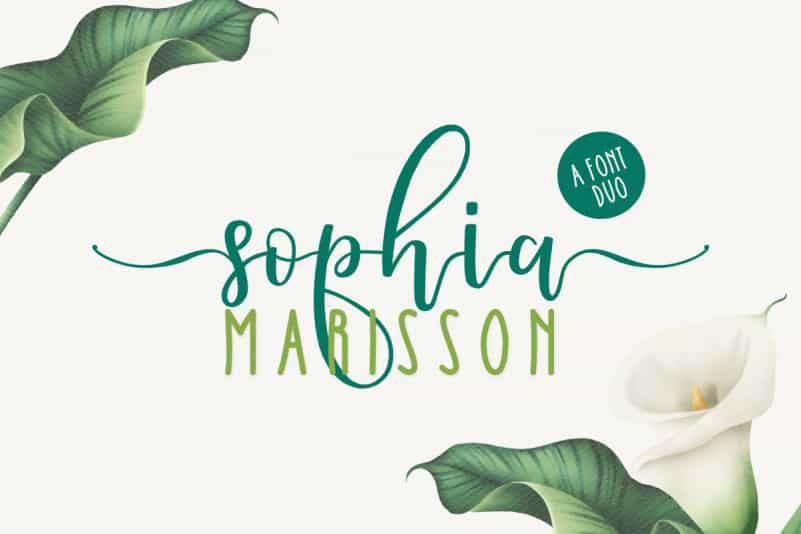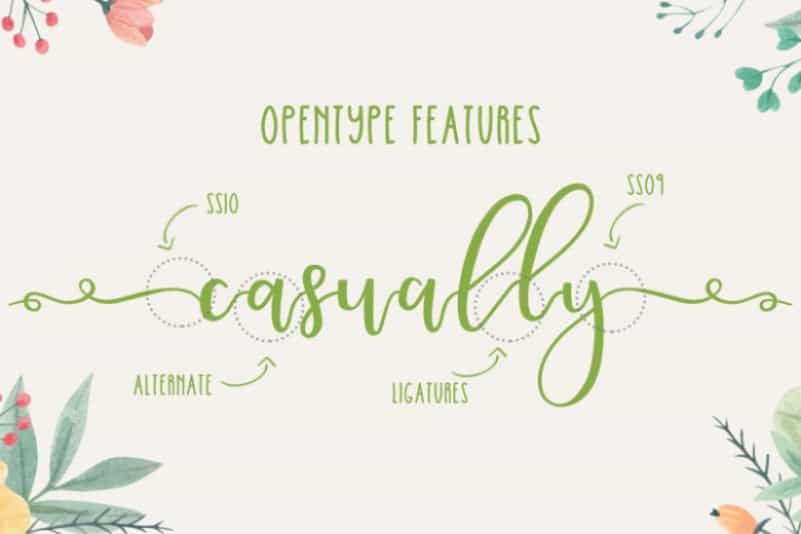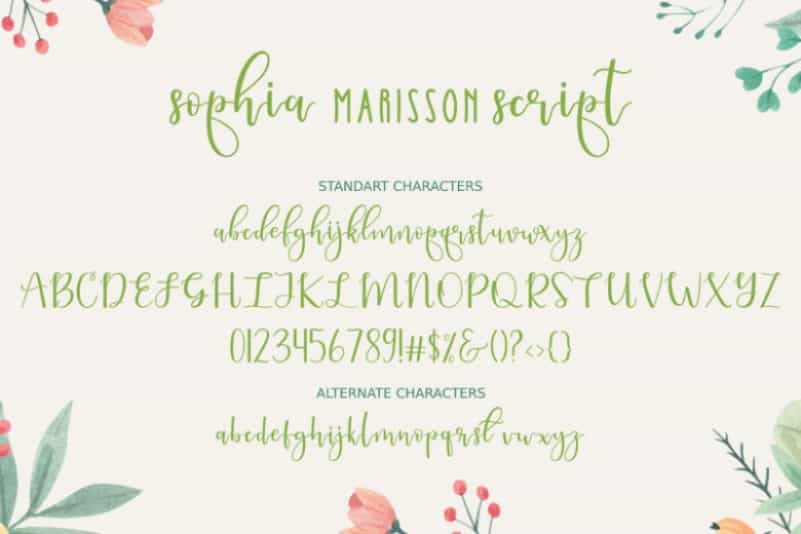
Sophia Marisson Font is an ideal match. This script type font for calligraphy is the perfect choice for branding, logos social media, as well as artistic DIY projects.